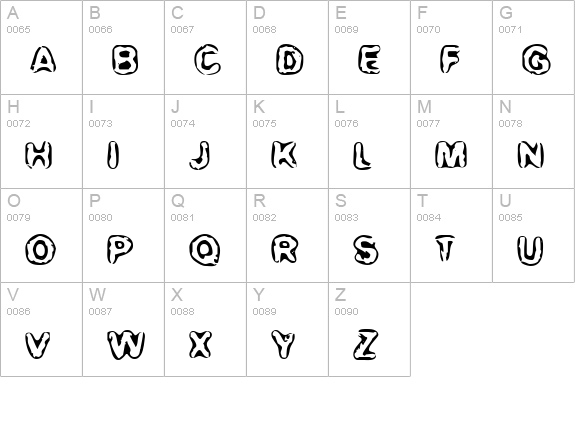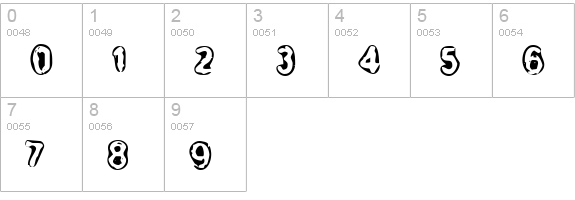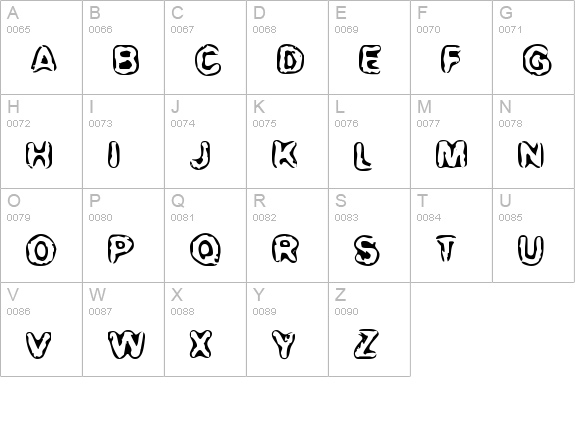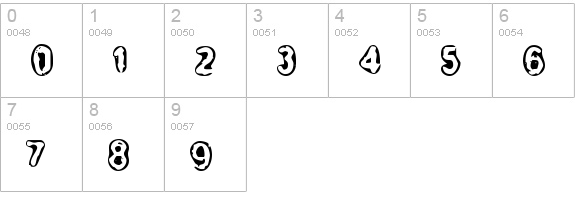
BN-Maxi Font Details
Introducing BN-Maxi font, a versatile and stylish typeface that exudes elegance and sophistication. With its bold and eye-catching design, BN-Maxi is perfect for making a statement in your projects. This modern font is ideal for headlines, logos, posters, and more, adding a touch of class to any design. What's even better is that BN-Maxi is available for free download at FontsMarket.com. This means you can easily access this stunning font and enhance your creations without any cost. Don't miss out on the opportunity to elevate your designs with BN-Maxi font today!